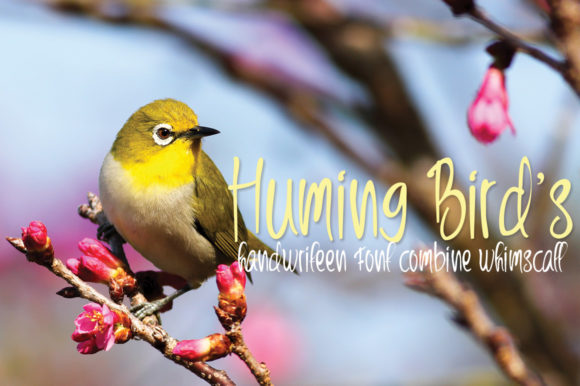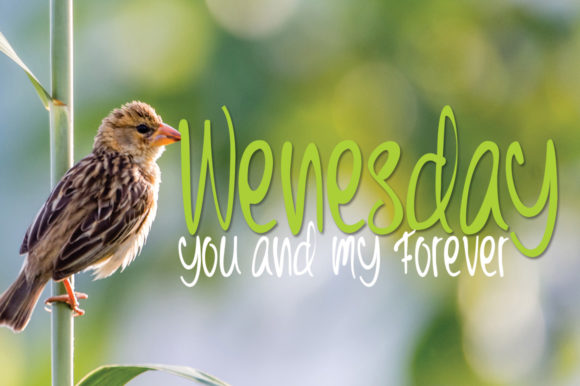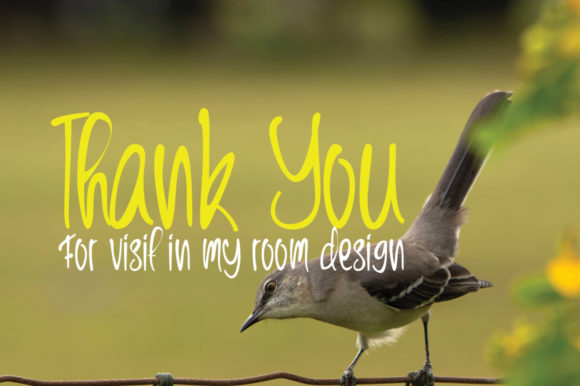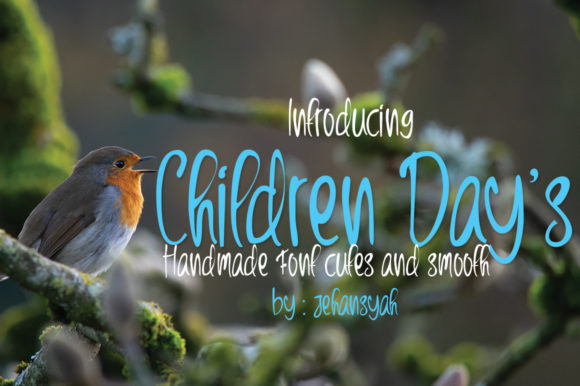
Introduction to Children Day’s Font
Have you ever found yourself stuck on a design project, searching for the perfect font to bring your vision to life? I know I have. It was during one of those moments that I stumbled upon the Children Day’s Font, a smooth handwritten typeface that has since become a staple in my design arsenal.
With its great readability and charming aesthetic, the Children Day’s Font is a valuable resource for designers looking to add a personal touch to their creative projects. Its high quality and transparent background make it perfect for use in a variety of design contexts, from digital applications to print materials.
Key Features of Children Day’s Font
- High-quality, unique design suitable for creative projects, such as children’s book illustrations, greeting cards, and educational materials.
Honest Review: Children Day’s Font
I recently stumbled upon Children Day’s Font, and I must say, it’s been a pleasant discovery. This free download has been a game-changer for my creative projects. The font’s high quality and transparent background make it perfect for designing vibrant and playful visuals.
Here are some things that work well with Children Day’s Font:
- ✨ Unique and playful characters that bring a smile to the viewer’s face
- ✨ Highly legible, even at smaller font sizes
- ✨ Suitable for a wide range of creative projects, from posters to social media graphics
- ⚠️ Limited character set, which may be a challenge for more extensive design projects
- ⚠️ Not suitable for formal or professional designs, as it may come across as too playful
Overall, I’m thoroughly impressed with Children Day’s Font. It’s a fantastic design resource for anyone working on a creative project. Its high quality and transparent background make it a joy to work with, and I’m sure I’ll be using it again and again in the future.
Tips for Getting the Most Out of Children Day’s Font
Use Children Day’s Font for creative projects, such as designing children’s books, educational materials, or promotional materials for kids.
Combine Children Day’s Font with a transparent background to create a modern and eye-catching design.
Children Day’s Font is perfect for:
Designing children’s party invitations, thank-you cards, and gift tags.
Creating educational materials, such as worksheets, posters, and brochures.
Developing brand identities for kids’ products and services.